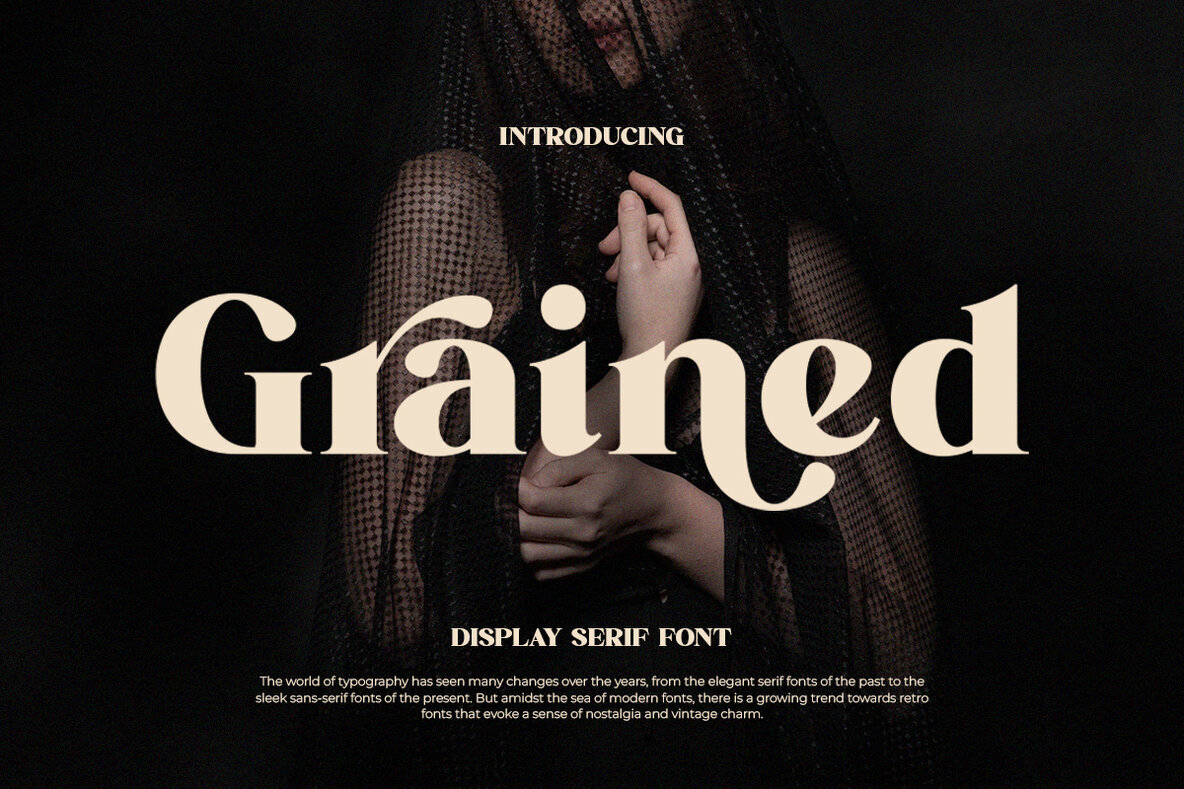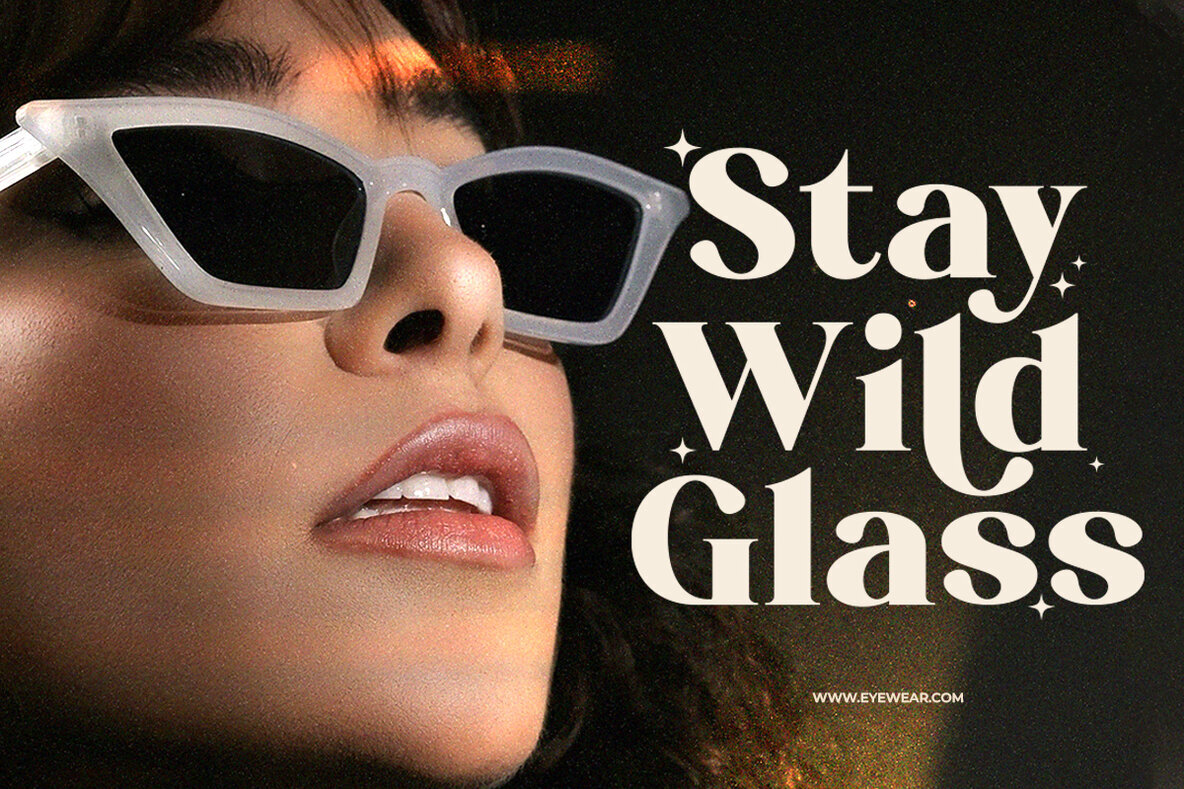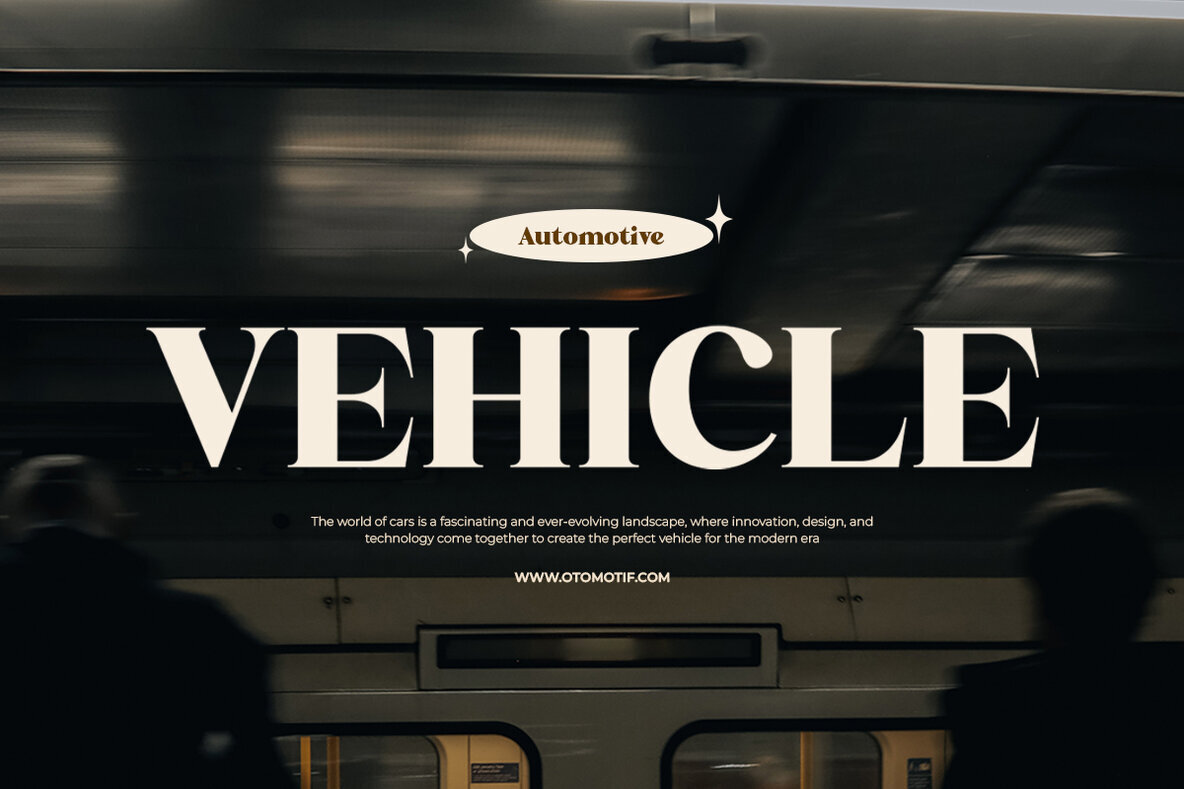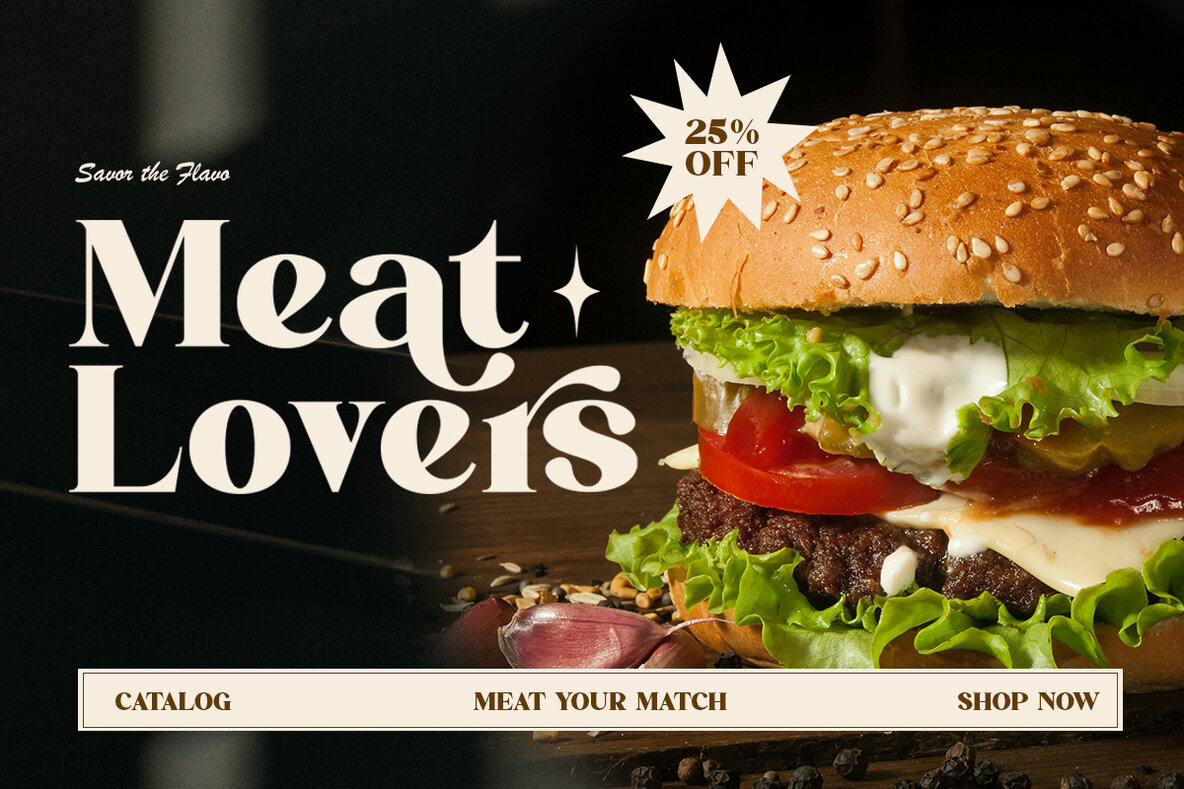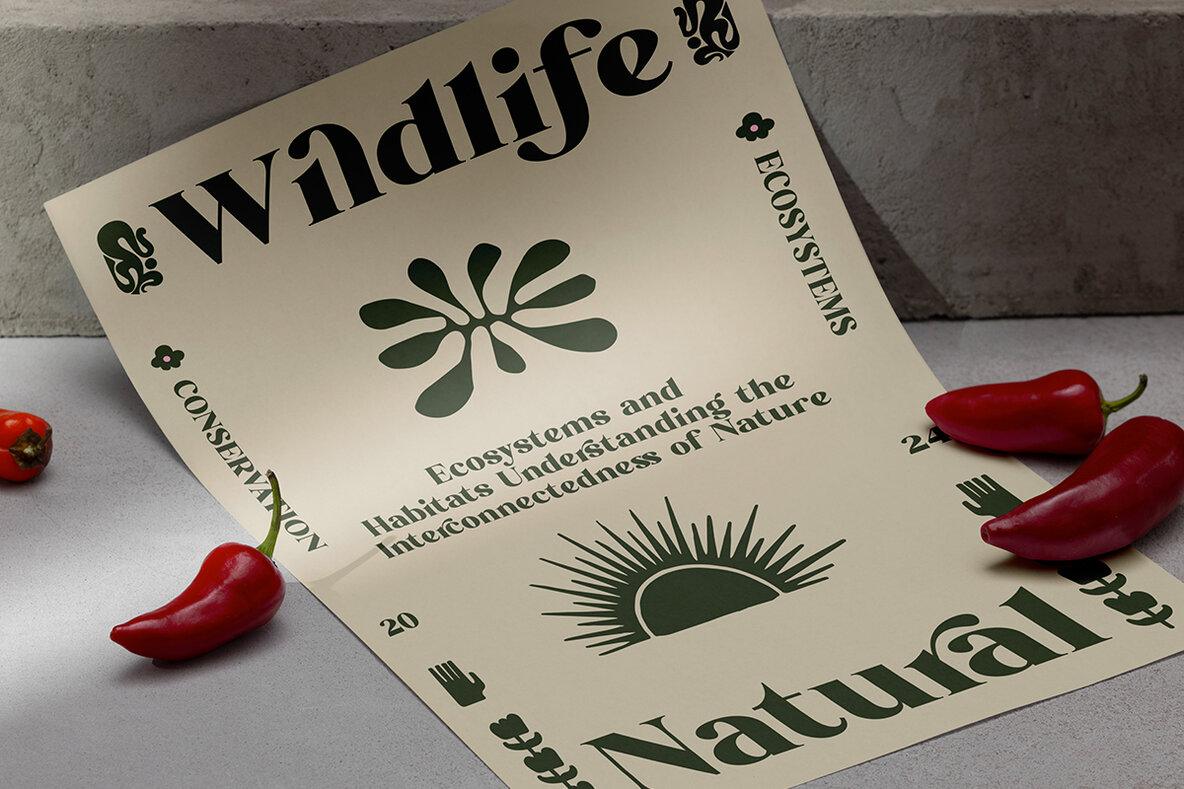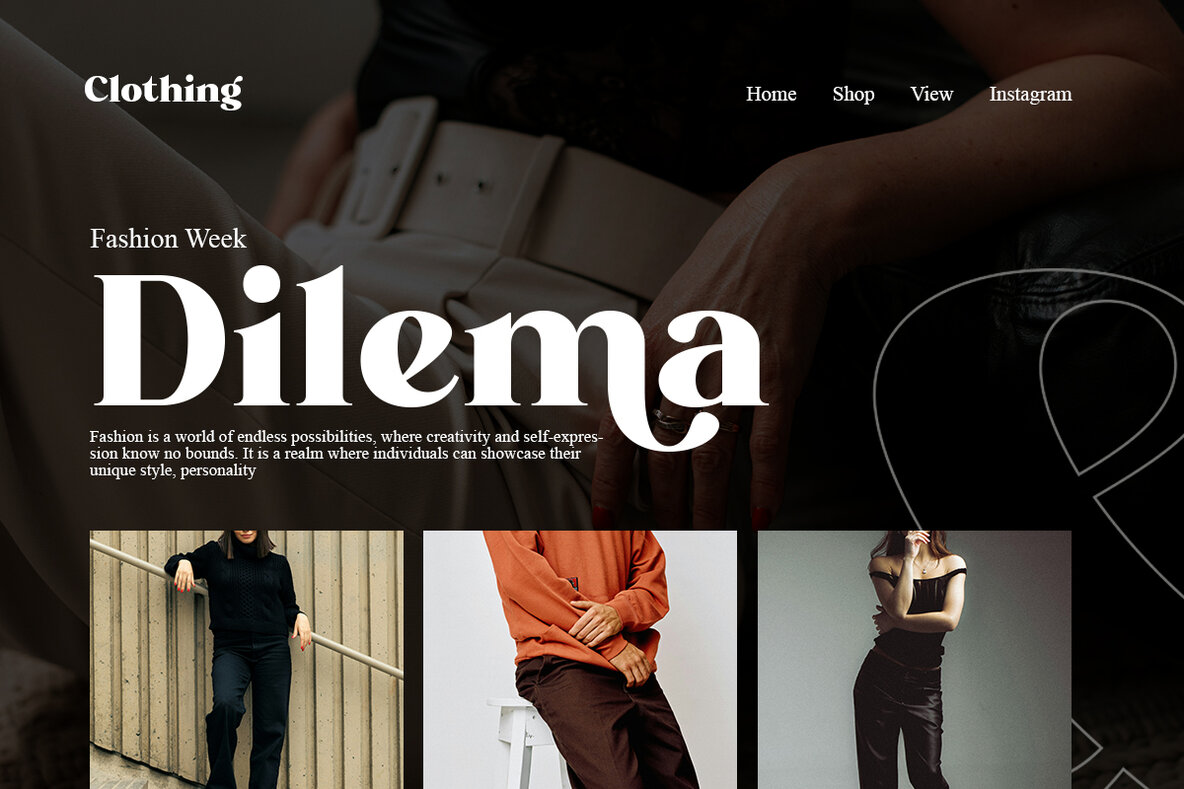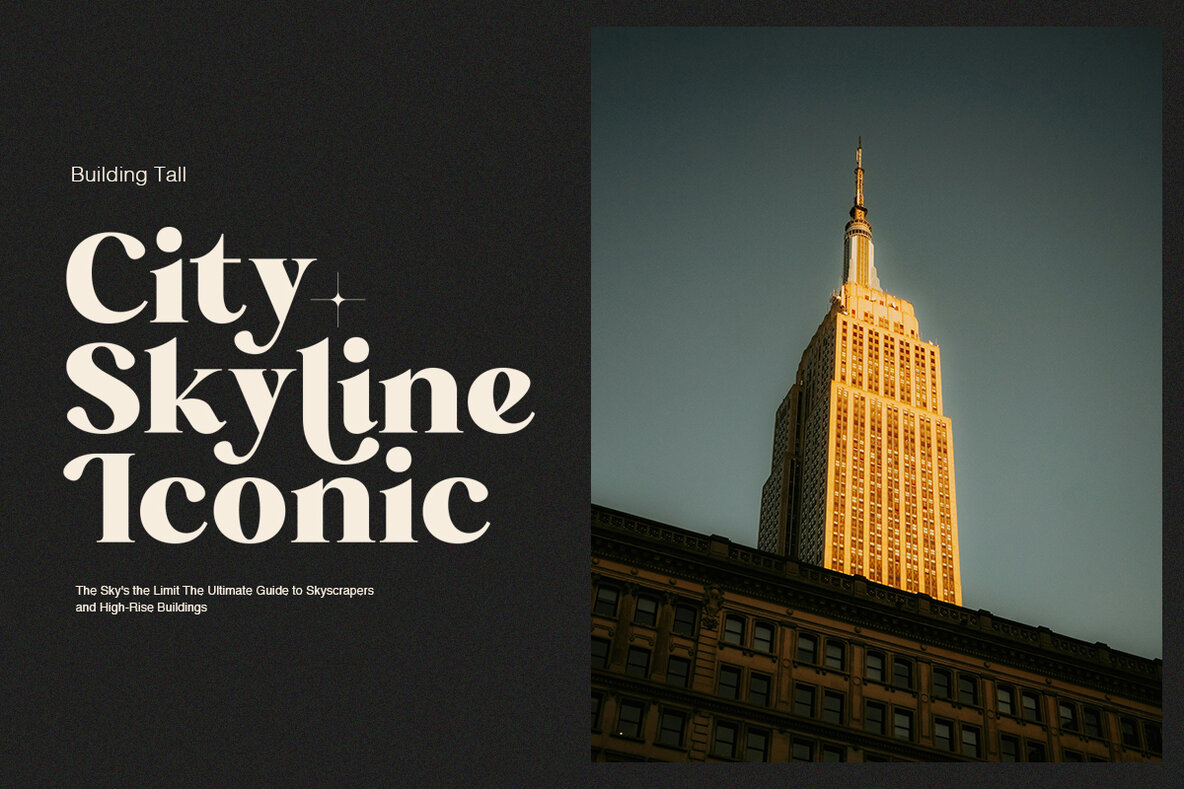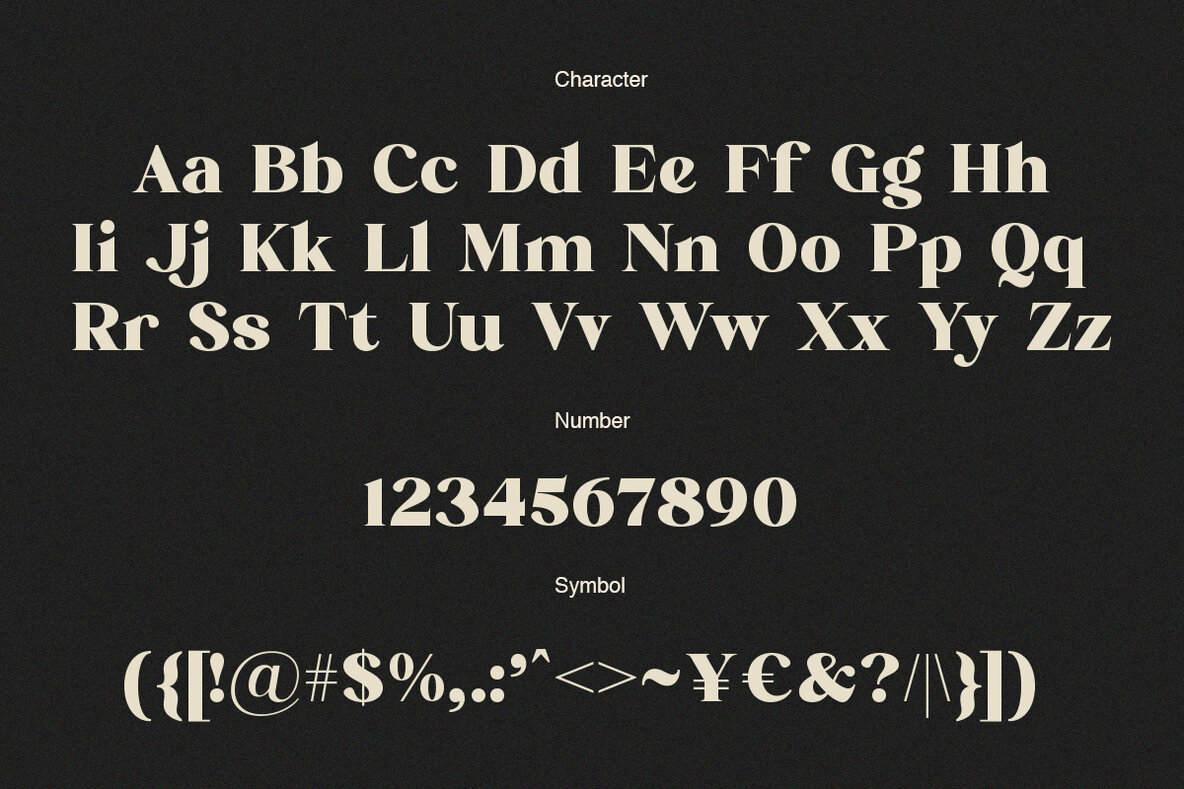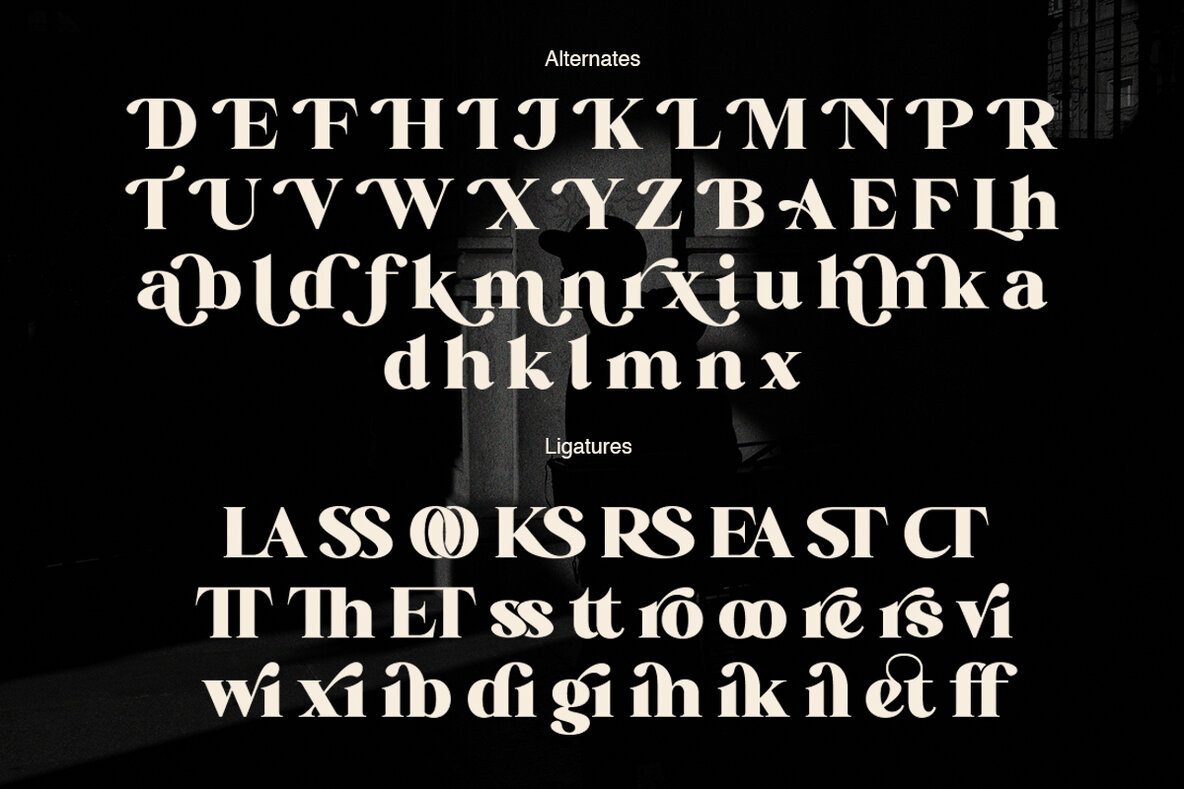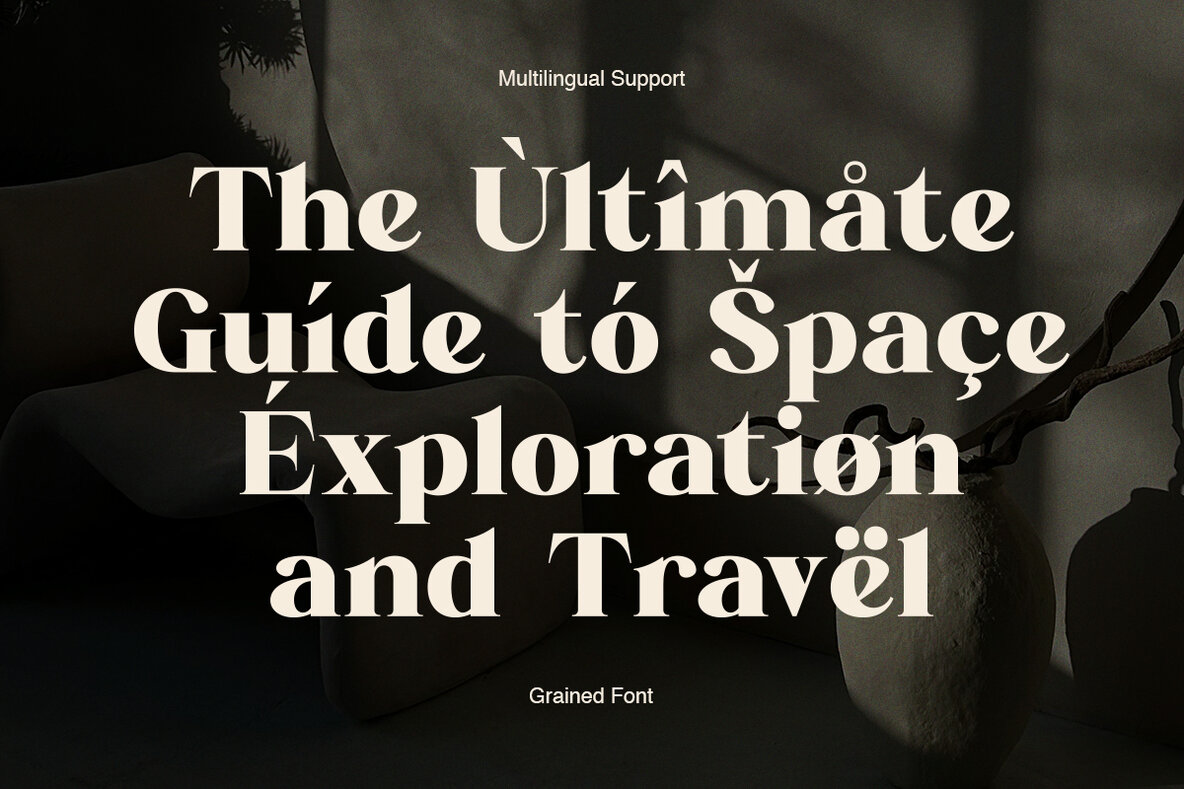
ET Grained Font
Grained Regular
ET Grained captivates with its classic elegance and a touch of modern flair. This display serif font features a unique grained texture, offering refined yet bold characters that make your design projects truly stand out. Its high contrast between thick and thin strokes, paired with sharp, detailed serifs, ensures a strong visual presence, ideal for headlines, branding, editorial layouts, logos, and premium packaging. ET Grained is the perfect choice for fashion editorials, luxury packaging, magazine titles, artistic posters, and brand identities that demand a bold and stylish typographic statement.ET Grained - Display Serif Font